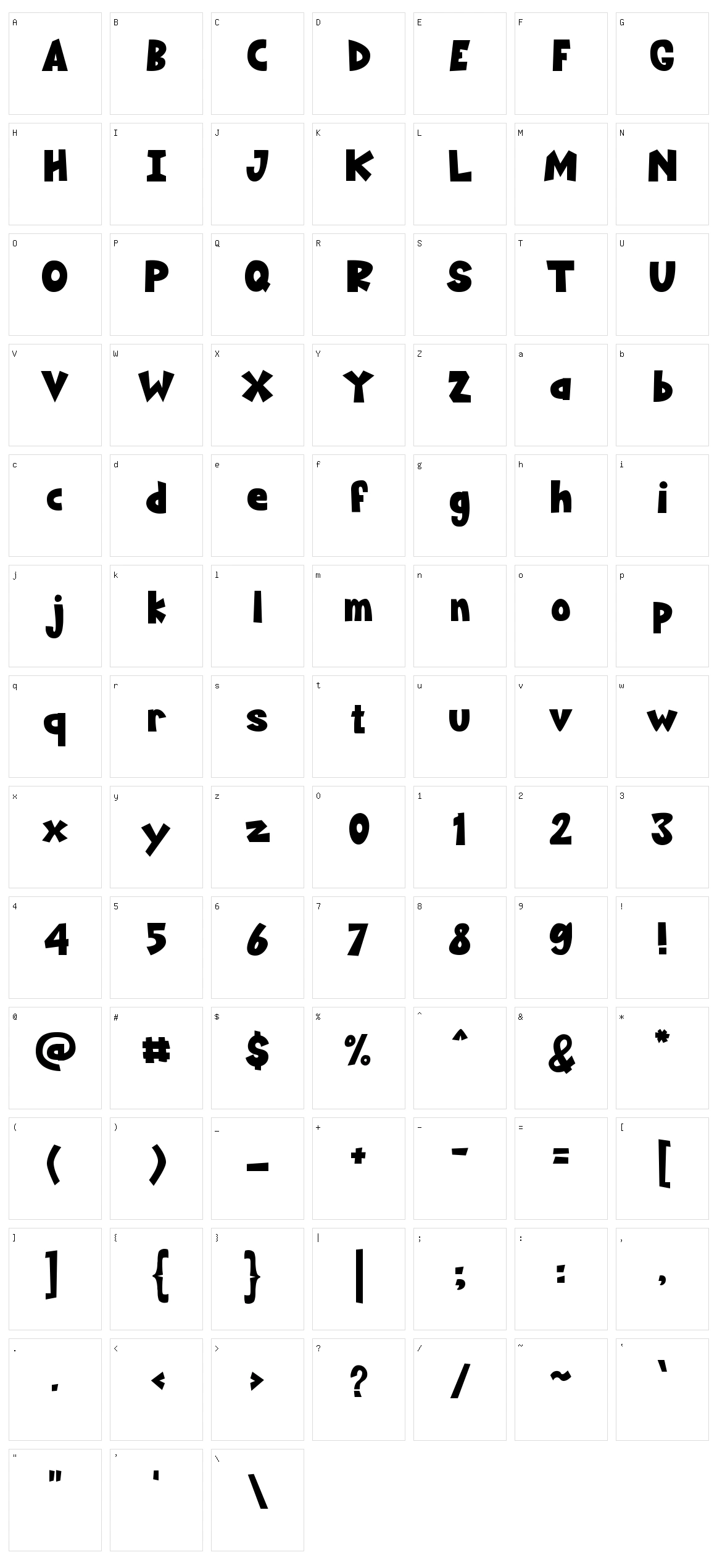
The free font Stupendous Jack is carefully designed by Tokokoo Studio, showcasing a thoughtful balance of creativity and usability and falls under the Cartoon font style. When you download the ZIP file, it contains only 12.16 KB of font files, making it lightweight and quick to download. Please review the license details below to understand permitted usage and distribution rights. If license information is not available, we recommend using this font for personal projects only or contacting the author directly for commercial usage permissions.